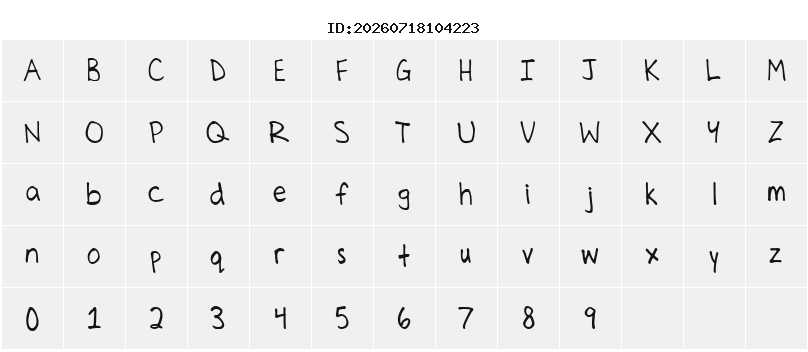
• Font Name: Celines Hand
Celines Hand.ttf is a modern, elegant sans-serif font designed for ultimate readability and visual harmony. Perfect for branding, headlines, web design, and print materials.